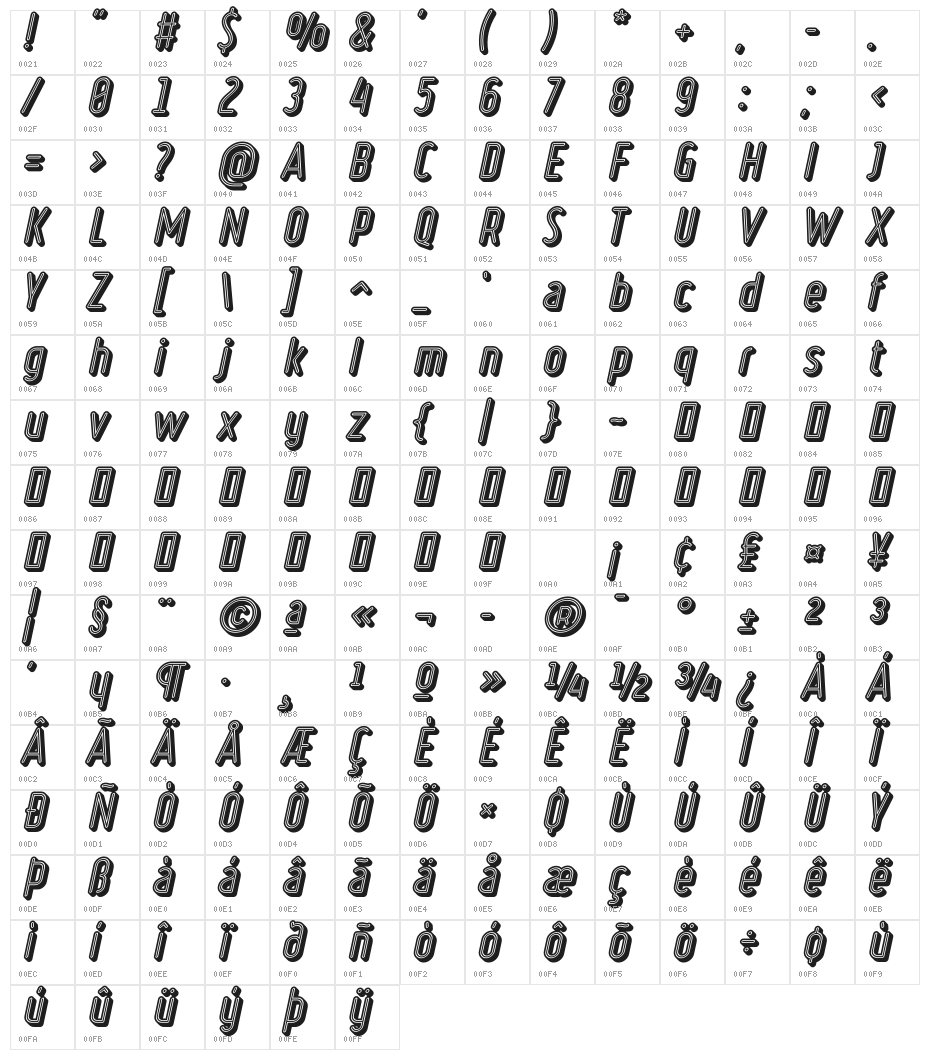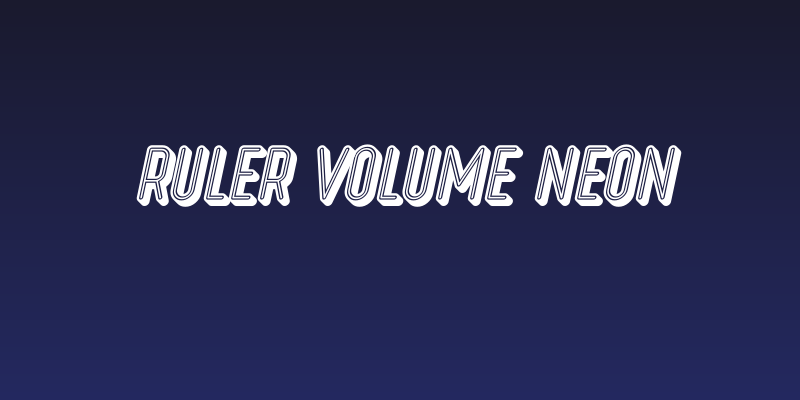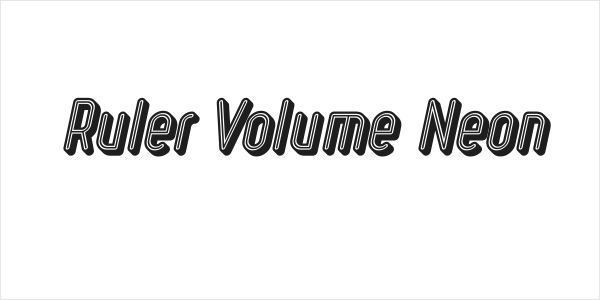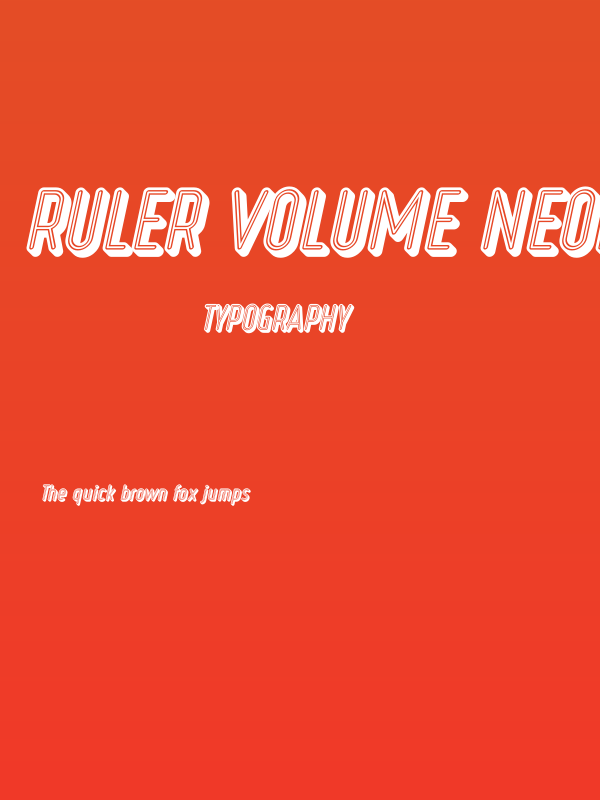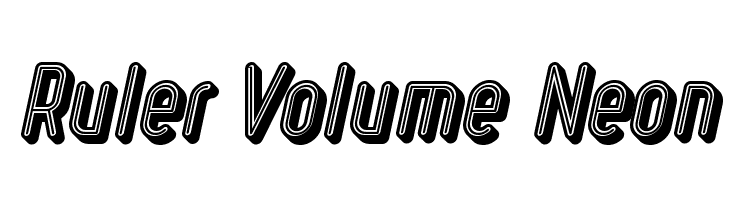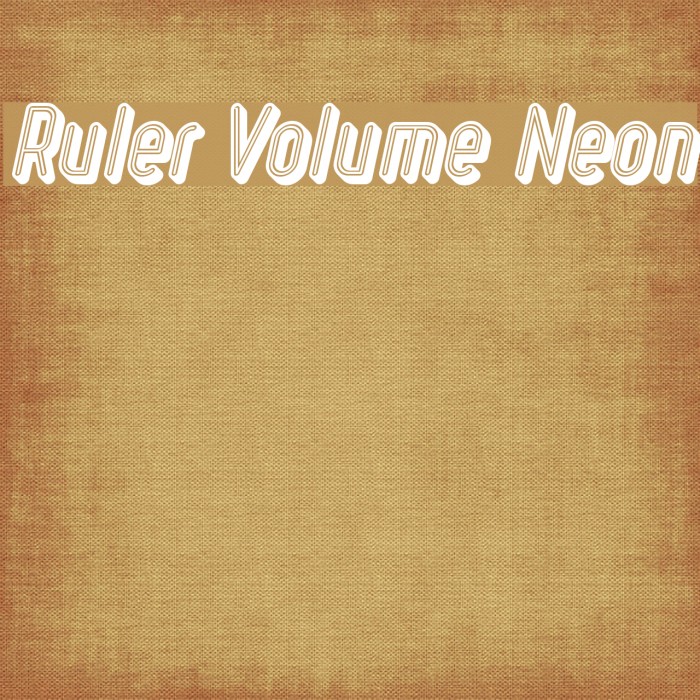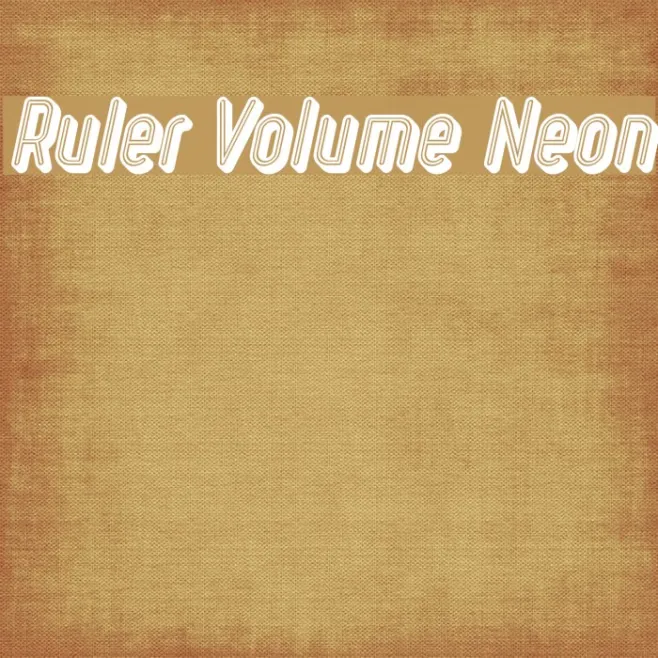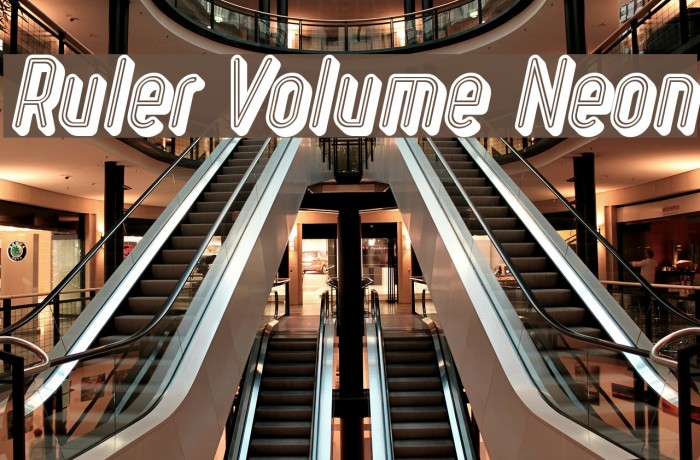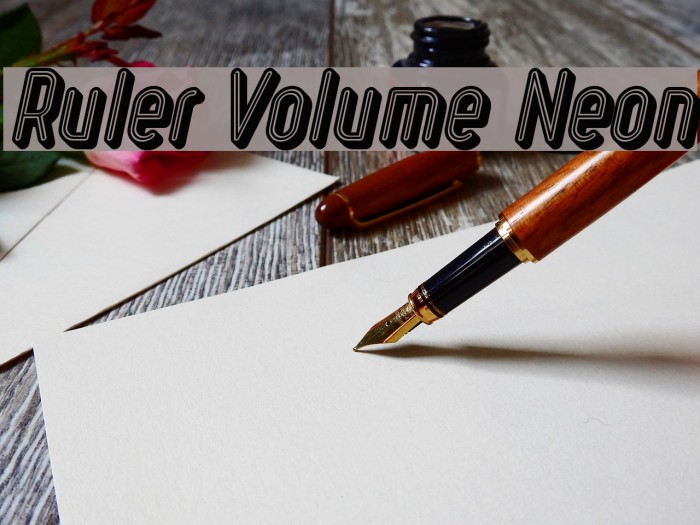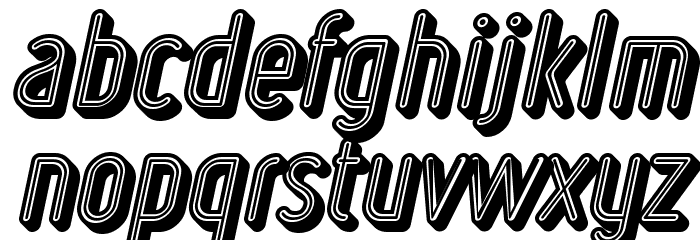
Ruler Volume Neon Font
Ruler Volume Neon Description
This font features a bold, neon-inspired design with a three-dimensional effect created by a thick outline. The characters are slightly slanted, giving a dynamic and energetic feel. The uppercase and lowercase letters maintain a consistent style, with smooth curves and sharp angles that enhance the modern aesthetic. Numbers and special characters follow the same design principles, ensuring uniformity across all glyphs. The font's style is reminiscent of retro neon signs, making it ideal for projects that require a vibrant and eye-catching appearance.
| Proposed Projects | Ideal for retro-themed designs, neon sign recreations, event posters, and eye-catching advertisements. |